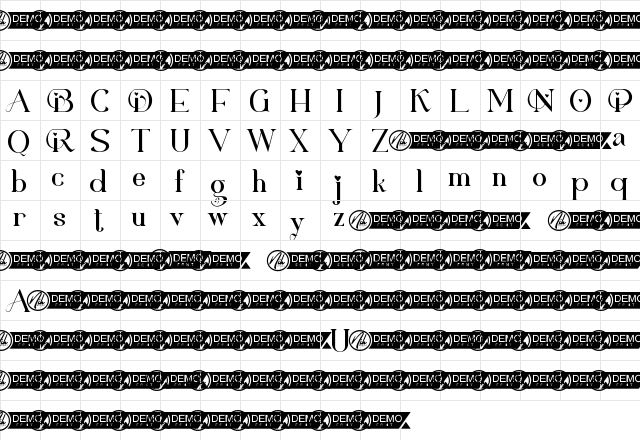
Darling Girl Demo is a composed and adaptable typeface that performs quietly and consistently across a wide range of design contexts.
Pro Tip: Use Darling Girl Demo in both headline and body roles to test its range before committing to a single application.